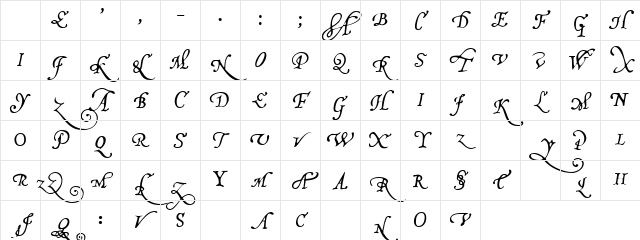
Complete Decorative Italic Initials Regular glyph index. Displaying only characters natively supported by Decorative Italic Initials Regular font.
Decorative Italic Initials is built around its visual character rather than neutral utility - its distinctive forms are designed to make an impression at display sizes. The slanted form adds forward momentum and visual energy.
Font Pairing: Pair with a clean neutral sans-serif for body copy to let Decorative Italic Initials's character lead without overwhelming the composition.
Pro Tip: Use Decorative Italic Initials exclusively at display sizes - it was designed to be seen, not read at length. Let a neutral companion handle body copy.